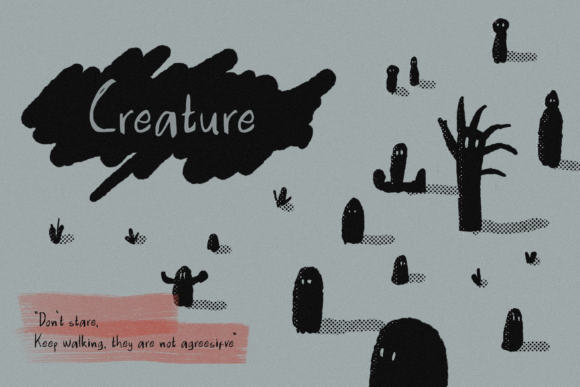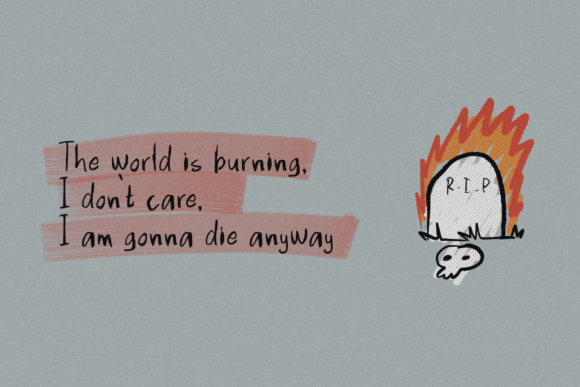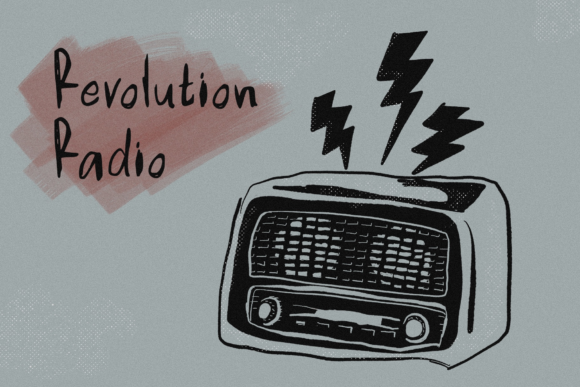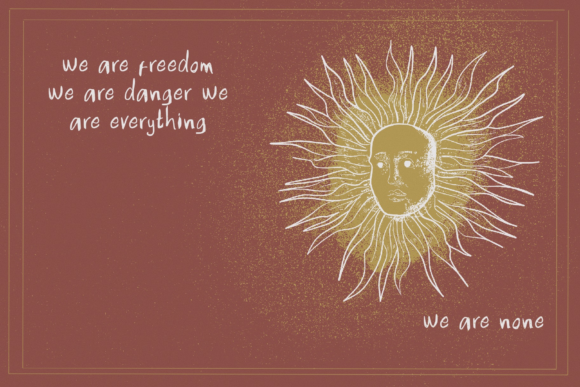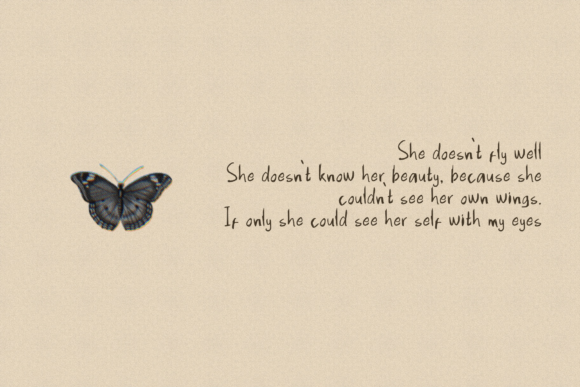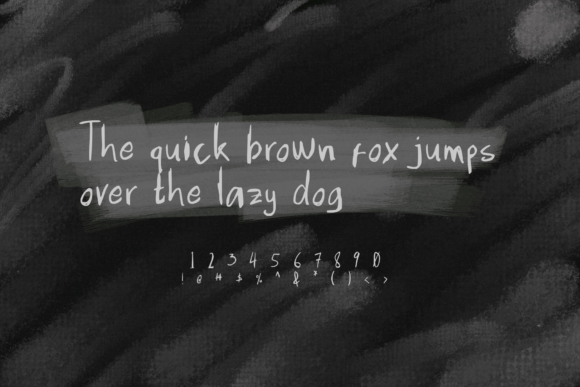
Discover the Beauty of Amara Bumi Font: Elevate Your Designs with a Touch of Nature
In the world of typography, fonts play a crucial role in conveying messages, evoking emotions, and setting the tone for a design. For designers and crafters seeking a typeface that embodies the essence of nature, Amara Bumi Font is an excellent choice. This rough and natural typeface is inspired by the beauty of the earth, making it perfect for a wide range of design projects.
What is Amara Bumi Font?
Amara Bumi, which translates to “beautiful earth,” is a unique typeface that captures the organic and rustic feel of the natural world. Its rough texture and authentic look make it an ideal choice for designers who want to add a touch of earthiness to their creations. Whether you’re working on a poster, flyer, magazine, logo, or any other design project, Amara Bumi Font is sure to bring a sense of warmth and character to your work.
Key Features of Amara Bumi Font
- Rough and Natural Texture: Amara Bumi Font boasts a distinctive rough texture that gives it an organic and handmade feel.
- Authentic Look: The typeface has an authentic look that makes it perfect for designs that require a natural and earthy feel.
- Versatile: Amara Bumi Font is suitable for a wide range of design projects, from posters and flyers to logos and magazines.
- Easy to Read: Despite its rough texture, Amara Bumi Font is easy to read, making it perfect for body text and headlines.
Design Applications for Amara Bumi Font
Amara Bumi Font is a versatile typeface that can be used in various design applications. Here are some ideas to get you started:
- Posters: Create eye-catching posters for outdoor events, promotions, or advertisements with Amara Bumi Font.
- Flyers: Design flyers for businesses, organizations, or events that require a natural and earthy feel.
- Magazines: Use Amara Bumi Font as a headline or body text font for magazines that focus on nature, sustainability, or lifestyle topics.
- Logos: Create logos for businesses or organizations that want to convey a sense of naturalness and authenticity.
- Branding: Use Amara Bumi Font for branding materials such as brochures, business cards, and letterheads.
Tips for Using Amara Bumi Font Effectively
To get the most out of Amara Bumi Font, here are some tips to keep in mind:
- Pair with Other Fonts: Experiment with pairing Amara Bumi Font with other fonts to create a unique and visually appealing design.
- Use for Headlines and Body Text: Use Amara Bumi Font for both headlines and body text to create a cohesive look.
- Adjust Font Size and Color: Adjust the font size and color to create visual hierarchy and emphasize important information.
- Experiment with Texture and Patterns: Experiment with texture and patterns to add depth and interest to your design.
Amara Bumi Font is a unique and versatile typeface that can add a touch of nature to your designs. With its rough texture and authentic look, it’s perfect for designers and crafters seeking a natural and earthy feel. Whether you’re working on a poster, flyer, magazine, logo, or any other design project, Amara Bumi Font is sure to bring warmth and character to your work. So why not give it a try and discover the beauty of Amara Bumi Font for yourself?